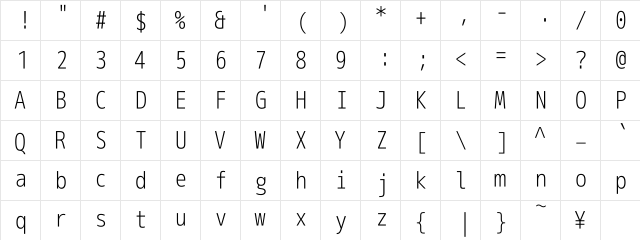
M+ 2m light
Design Context for M+ 2m Typeface
M+ 2m is a composed and adaptable typeface that performs quietly and consistently across a wide range of design contexts. Its slender proportions lend an understated elegance to any composition.